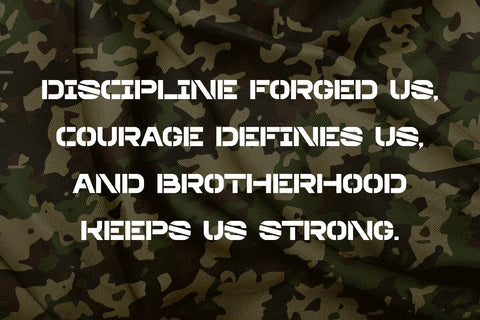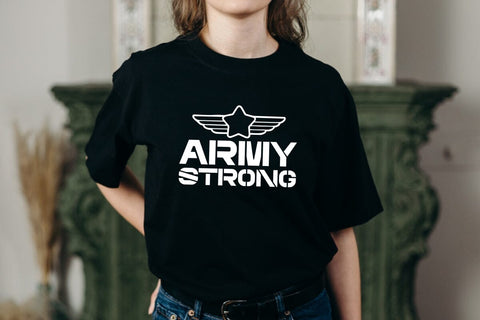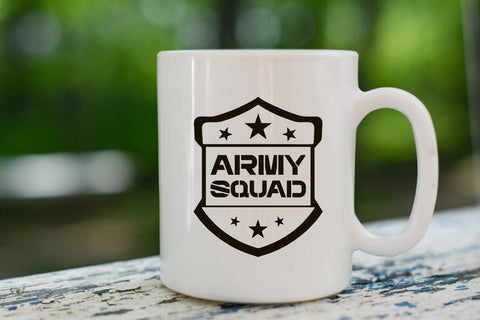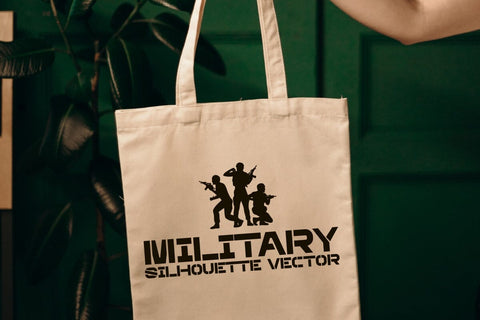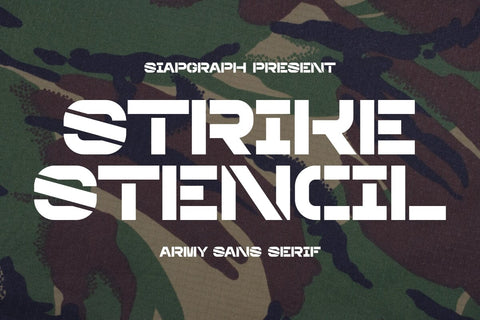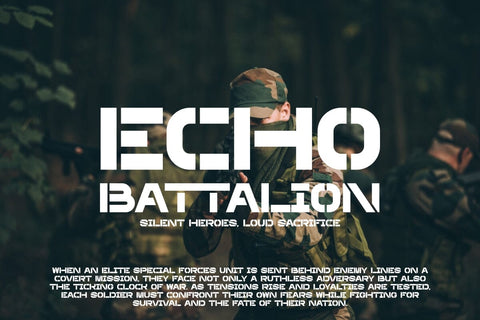
Strike Stencil - Army Sans Serif Font (Tanpa Texture)
Strike Stencil is a bold and elegant sans serif stencil font that blends Army and Christmas themes. Its strong, cutout design makes it perfect for adding a unique touch to quotes, stickers, posters, apparel mockups, mugs, and tote bags. Strike Stencil brings a powerful yet festive feel, making it versatile for both rugged military designs and cheerful holiday creations.